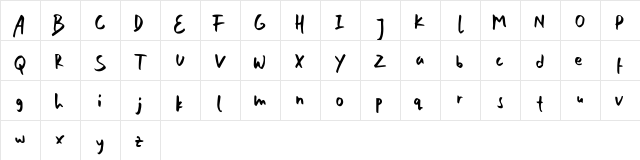
Cerita Senja FREE Regular Font Preview
Cerita Senja FREE Regular
Cerita Senja FREE Regular Font Details
| Foundry | Inspiratype |
| Designer | Inspiratype |
Design Context for Cerita Senja FREE Typeface
Cerita Senja FREE is a composed and adaptable typeface that performs quietly and consistently across a wide range of design contexts.